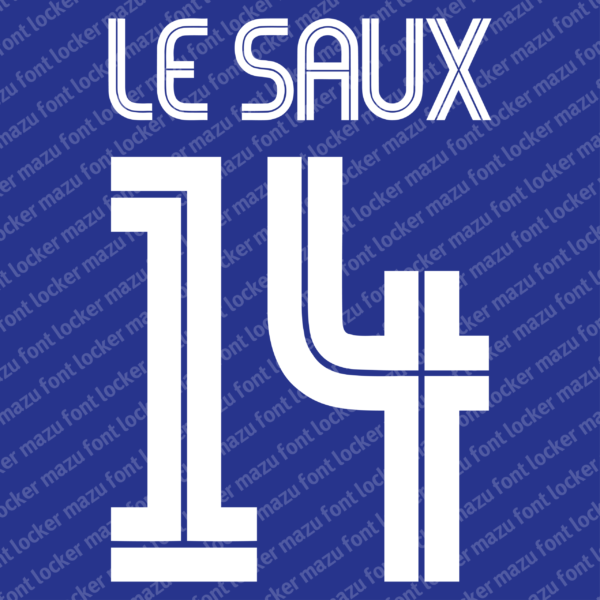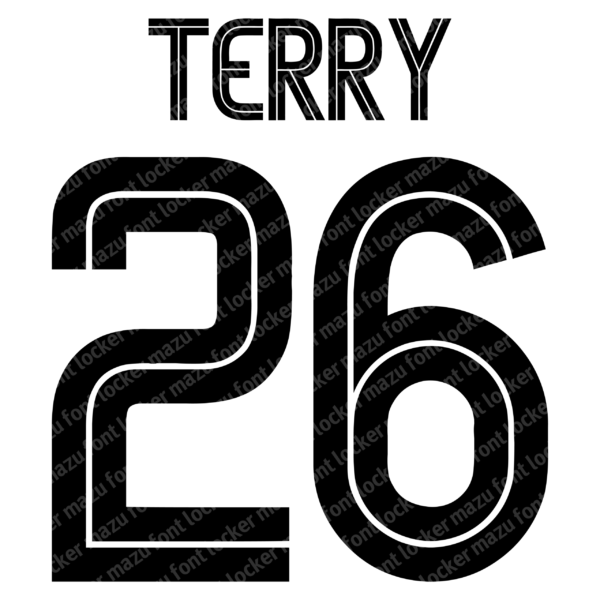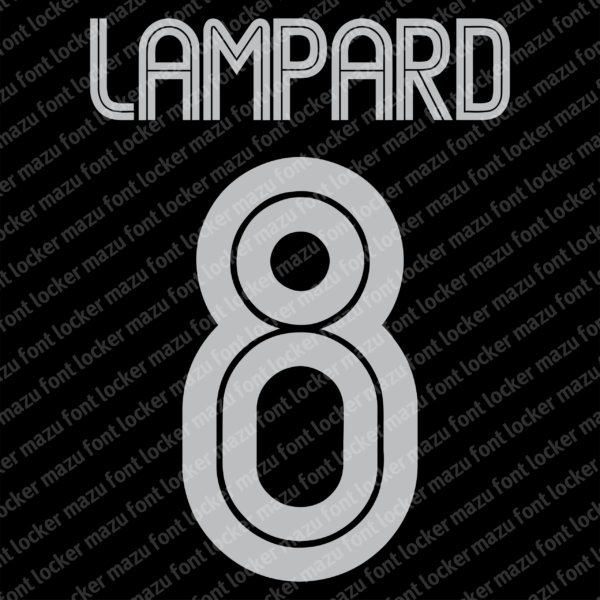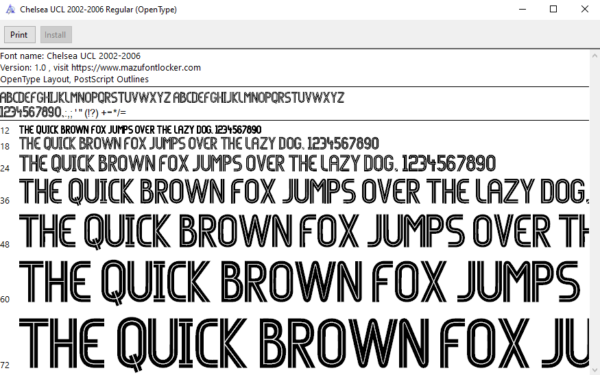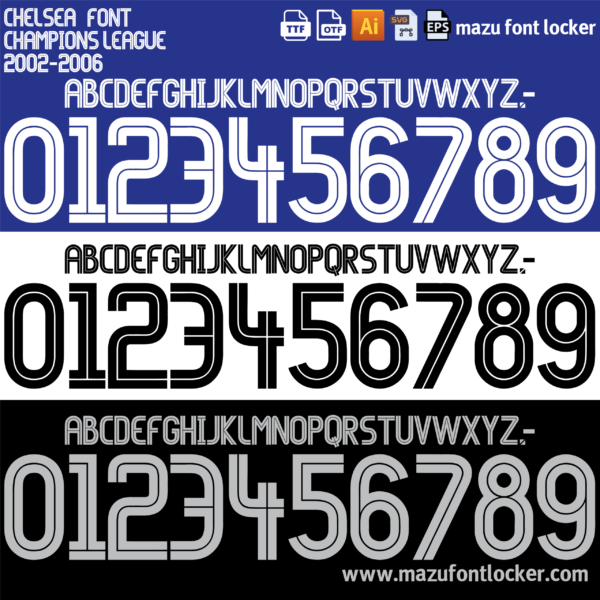
Chelsea 2002-2006 Font Vector – Ruthless Blues Dynasty Masterpiece
Get the official Chelsea 2002-2006 jersey look with this premium vector font set. This high-quality font is meticulously crafted to replicate the authentic lettering and numbering used by Chelsea for the 2002-2006. Perfect for kit designers, fans, and professional sportswear customisation, it ensures a sharp, match-day finish for both digital and print projects.
Chelsea 2002-2006 Font Vector – Authentic Jersey Lettering
Chelsea 2002-2006 Font is a high-quality football jersey font vector created to replicate the official lettering and numbering style used during the iconic 2002-2006 Season. Perfect for designers, football fans, and jersey customisation projects, this font set delivers an authentic and professional match-day appearance.
Inspired by the original Chelsea 2002-2006 team kit, every letter and number has been carefully recreated to ensure accurate retro styling for both digital and print projects.
• Authentic 2002-2006 Chelsea jersey lettering style
The authentic lettering style helps recreate the classic look of the Chelsea 2002-2006 kit with professional accuracy.
Unlike generic jersey fonts, this set is designed with a strong focus on authenticity and accuracy. Every detail is based on the original match lettering style used during the 2002-2006 season, helping designers and collectors create realistic football shirt designs.
This Chelsea 2002-2006 font vector set is designed for authentic football jersey customization and works perfectly for retro football projects, collector designs, and professional sportswear artwork.